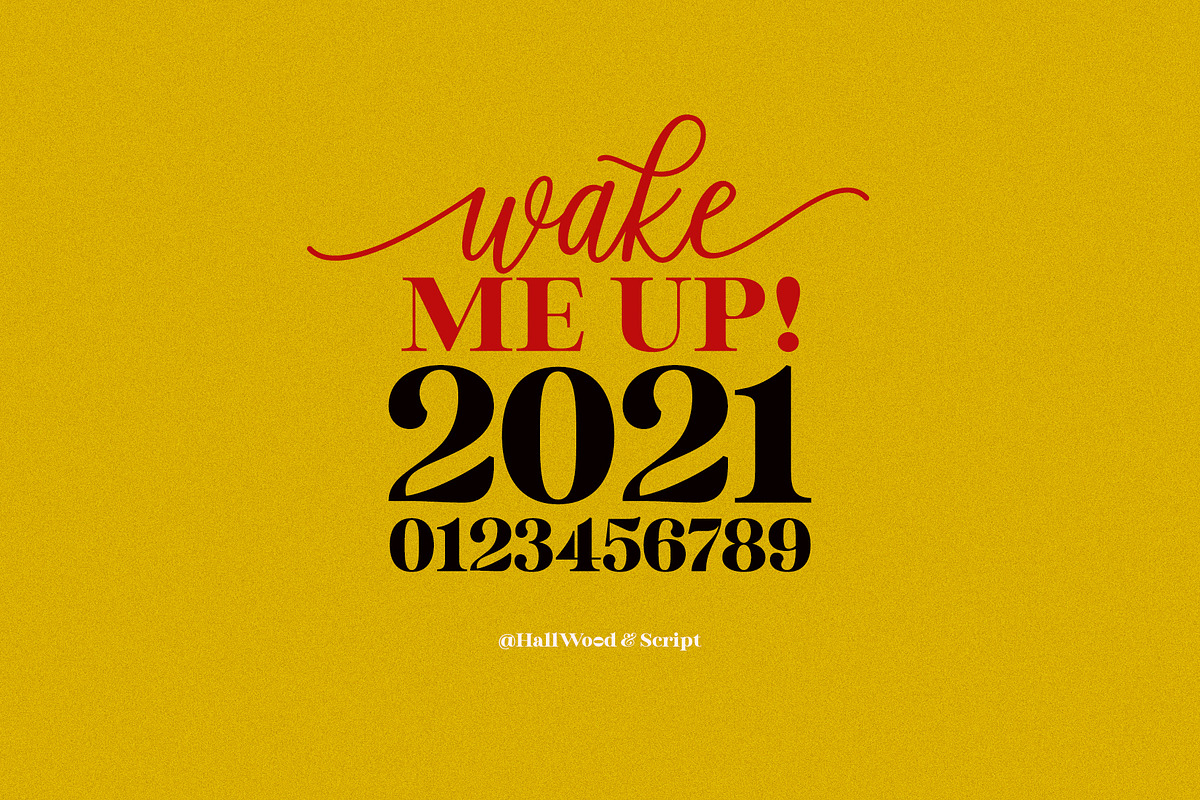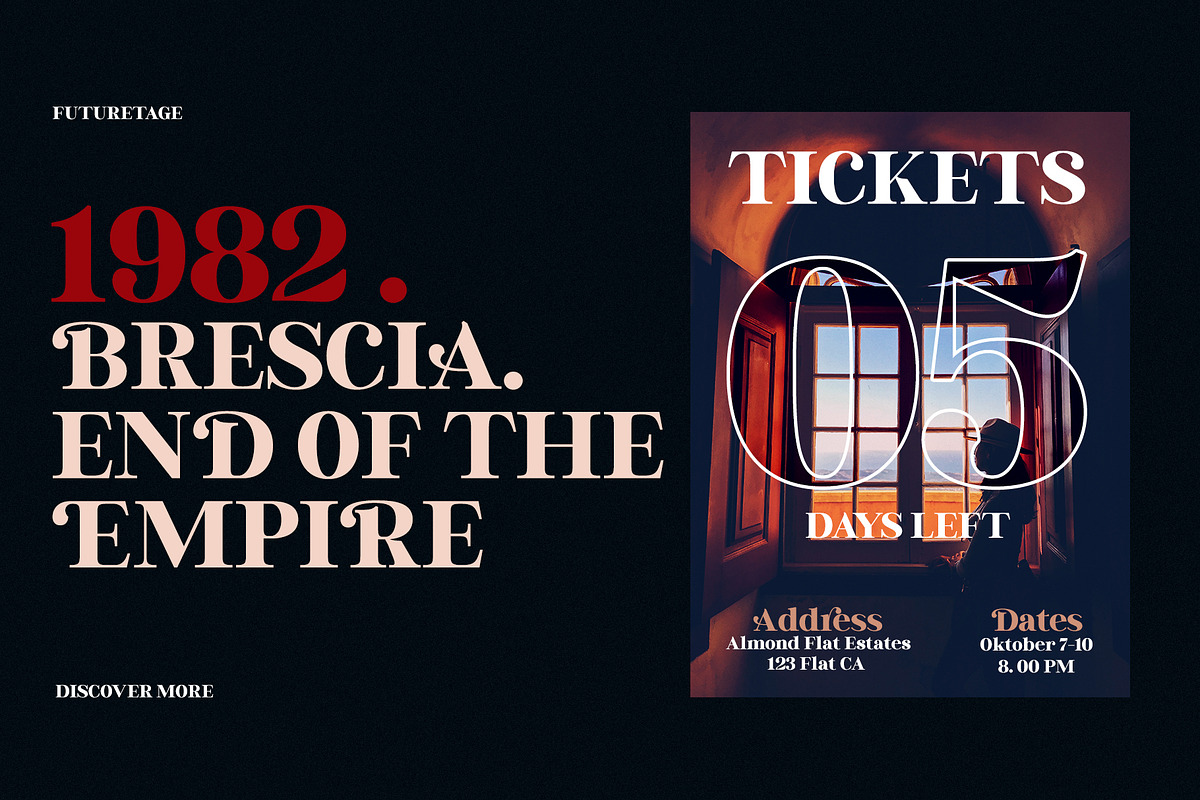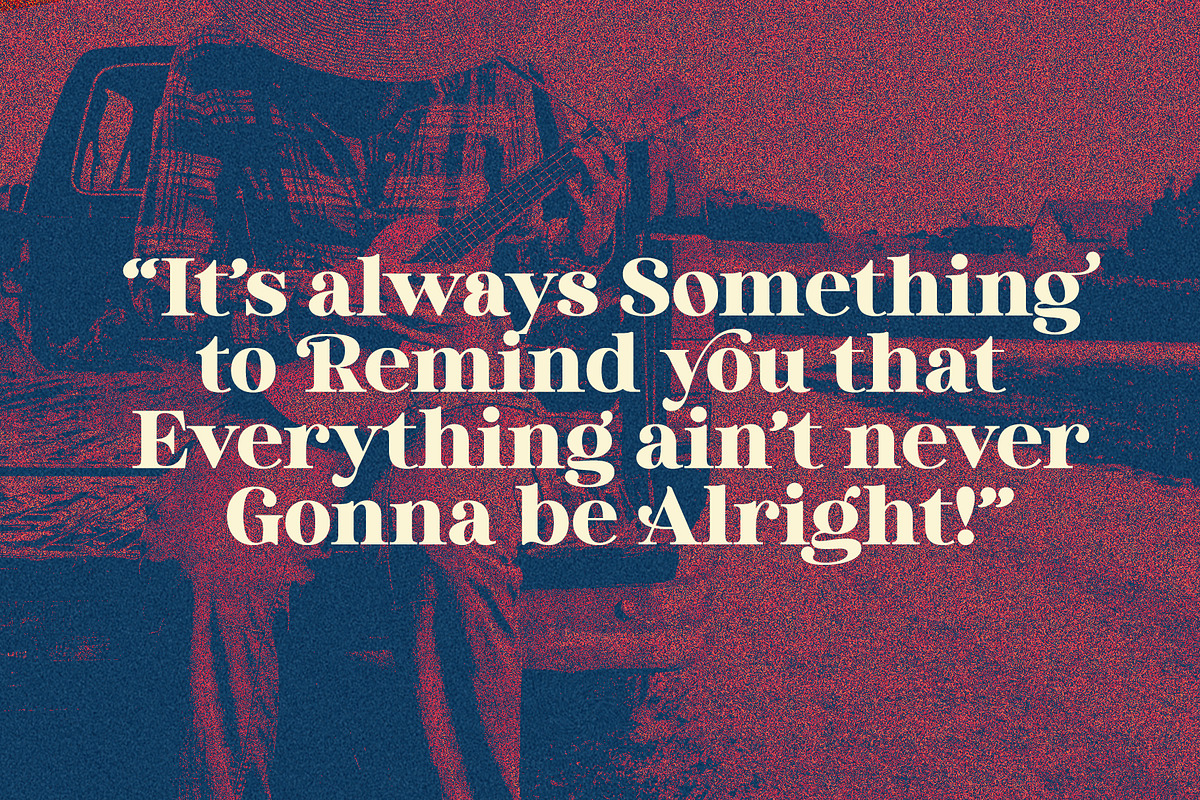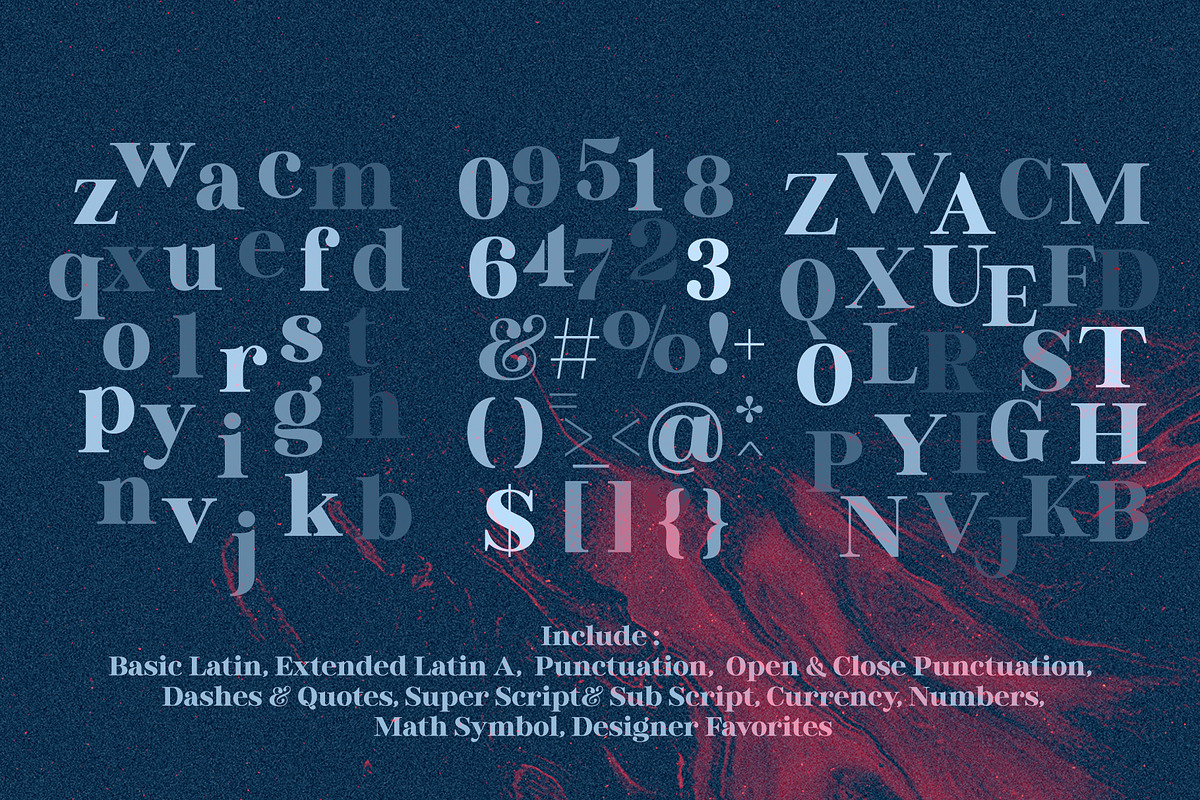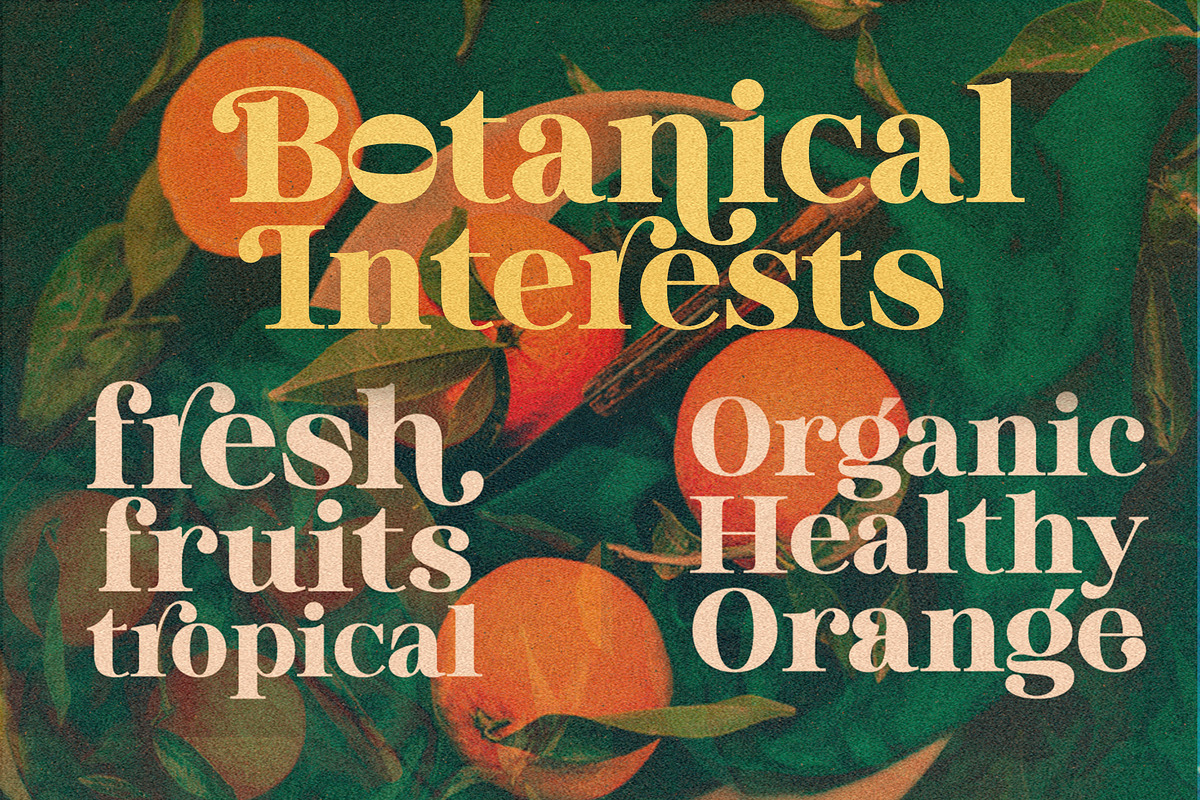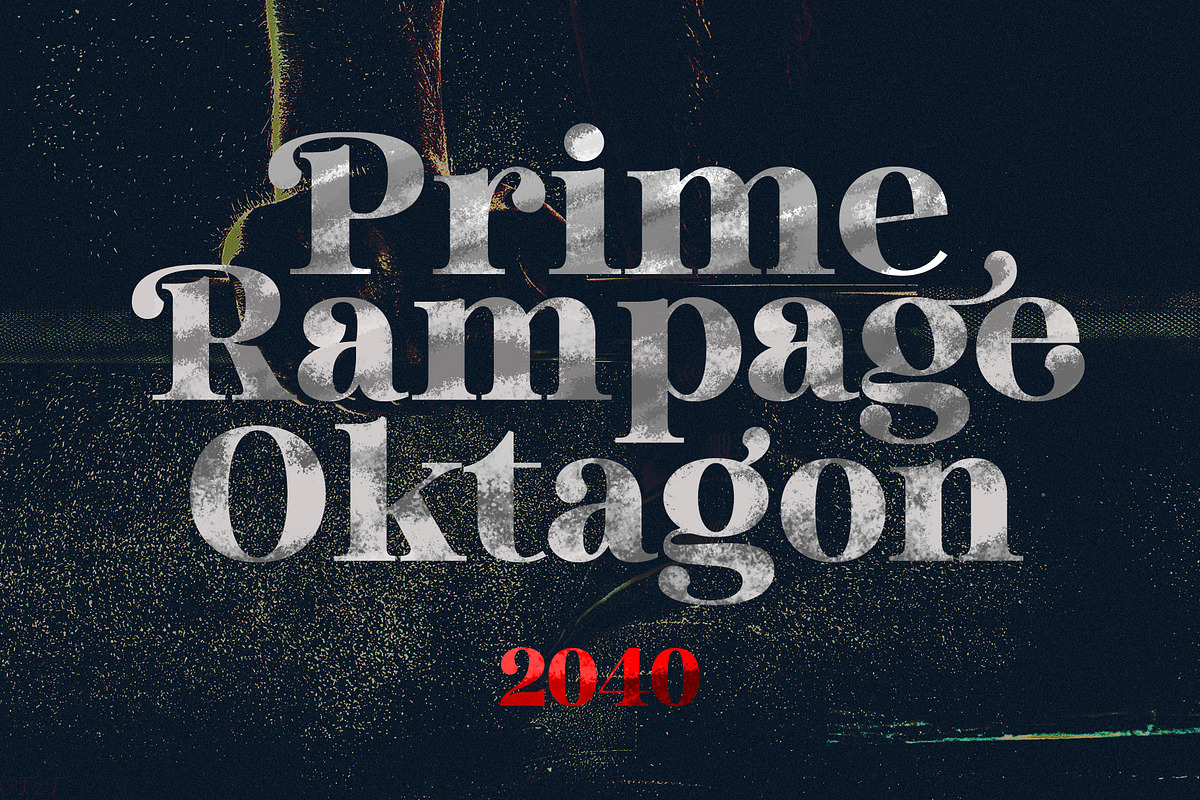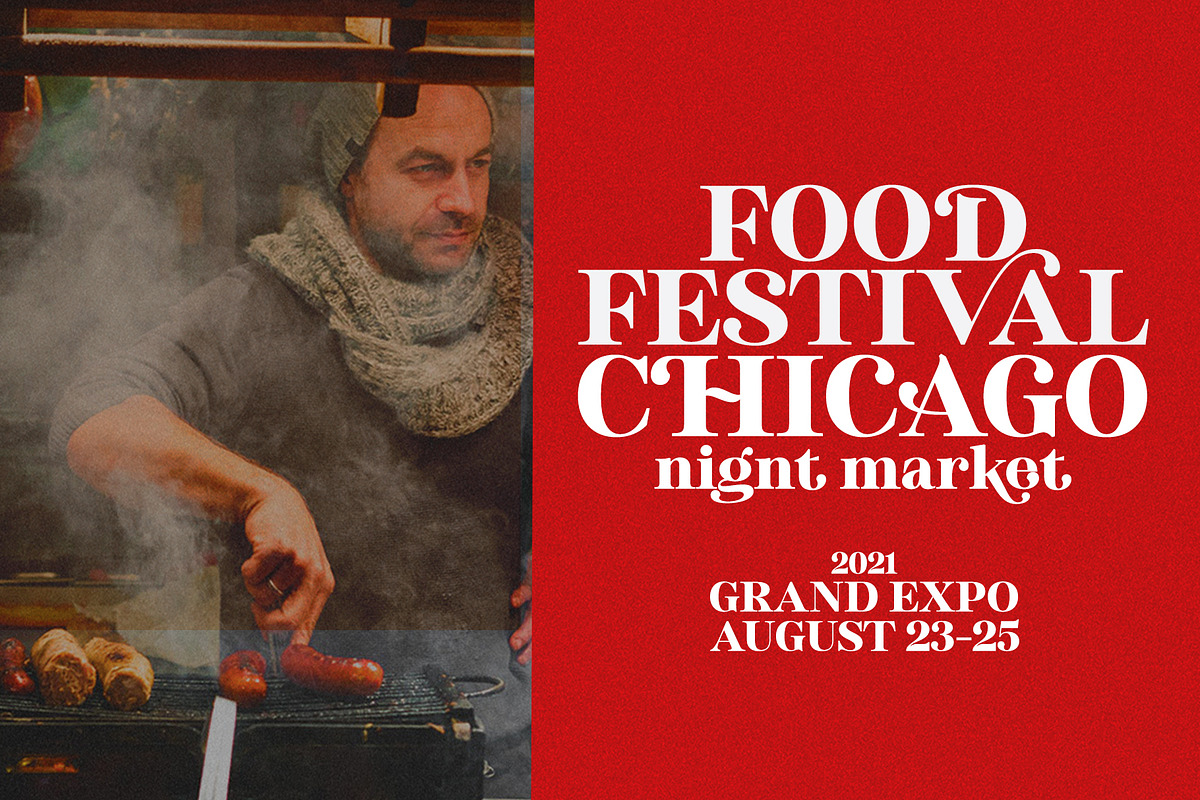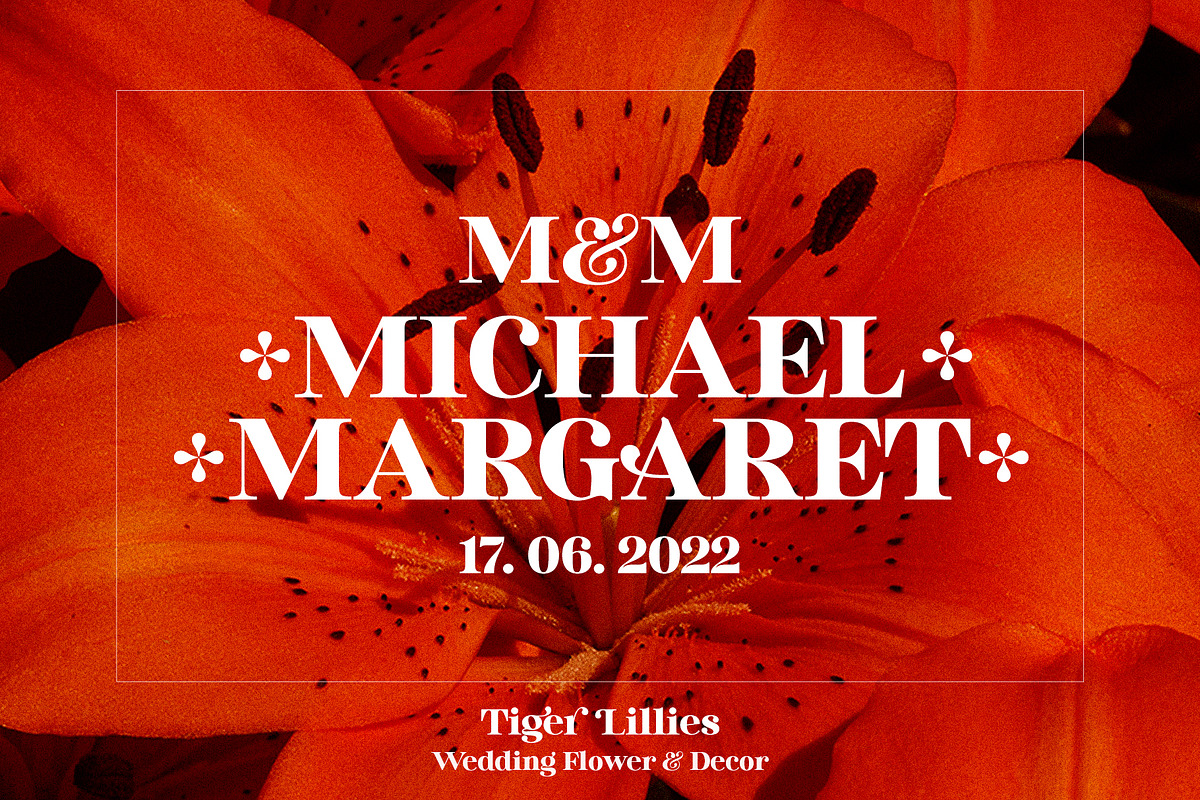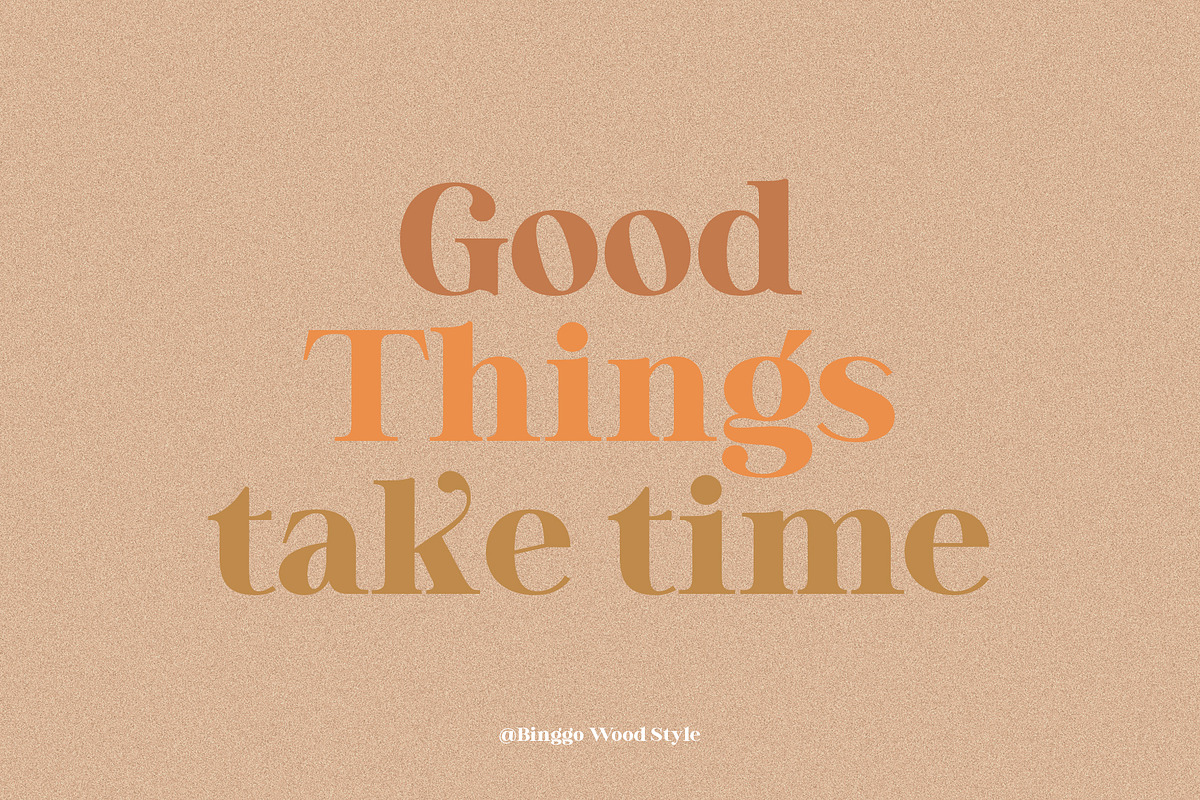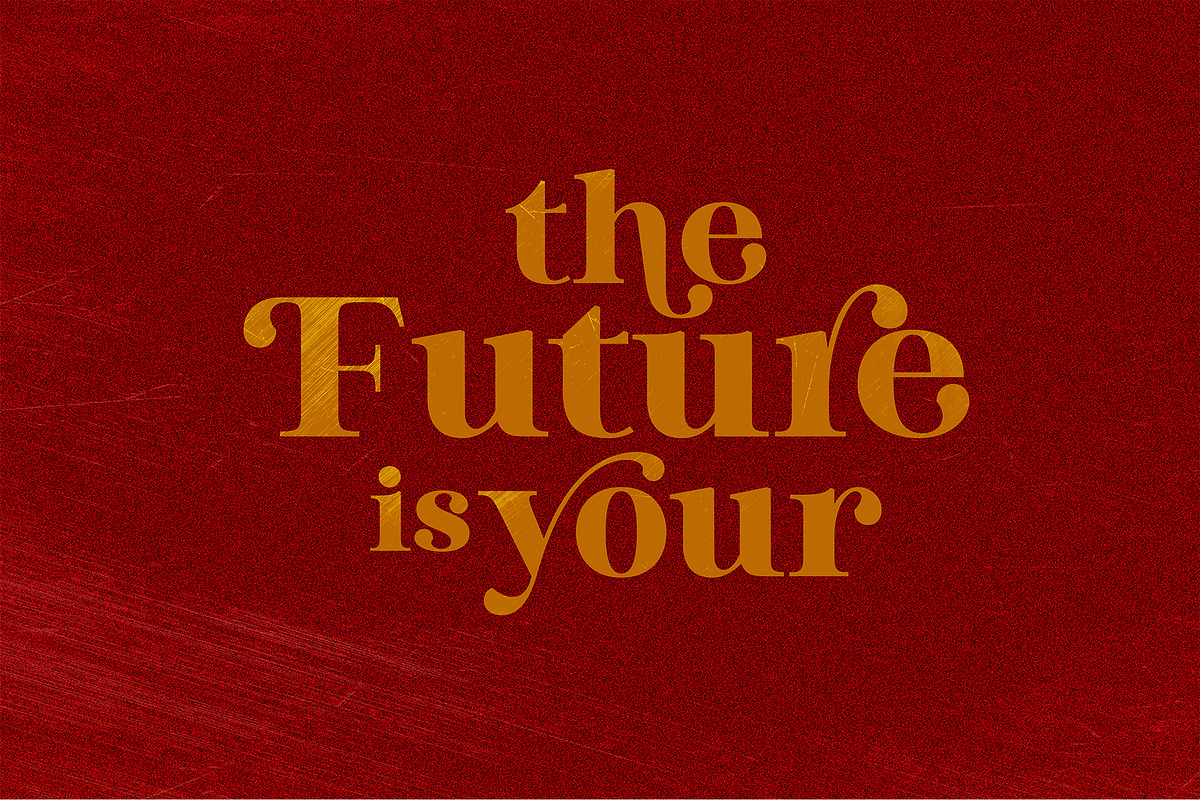
Binggo Wood Display
Bingo Wood Display in totality and elegance. One of my newest first releases, hand drawn with pinpoint accuracy. Bingo Wood has the perfect amount of simplicity and subtlety for your next project. It perfectly represents retro and vintage aesthetics. I recommend this font for logos, invitations, and your next home decor project that requires a touch of compact alternative combinations!
Bingo Wood appears with a total of 593 Glyph characters available: Basic Latin, Extended Latin A, Punctuation, Open & Close Punctuation, Dashes & Quotes, Super Script & Sub Script, Currency, Numbers, Math Symbol, Designer Favorites Case Sensitive Forms, Discretionary Ligature, Denominators, Standard Ligature, Numerators Stylistic Alternates Set, 1, 2, 3, Sup Script, Super Script, Swash